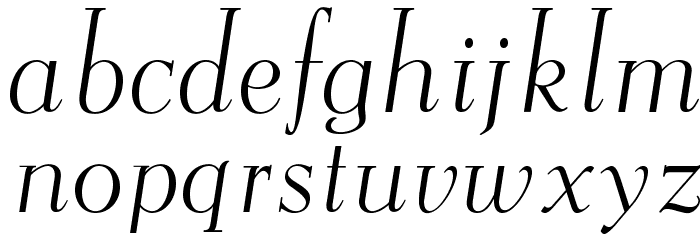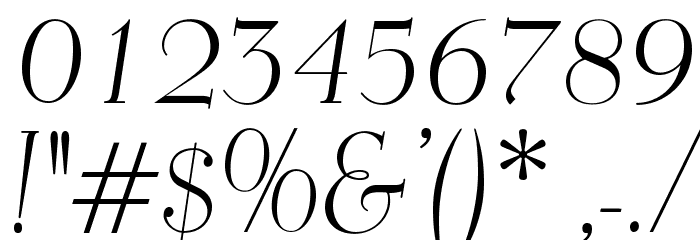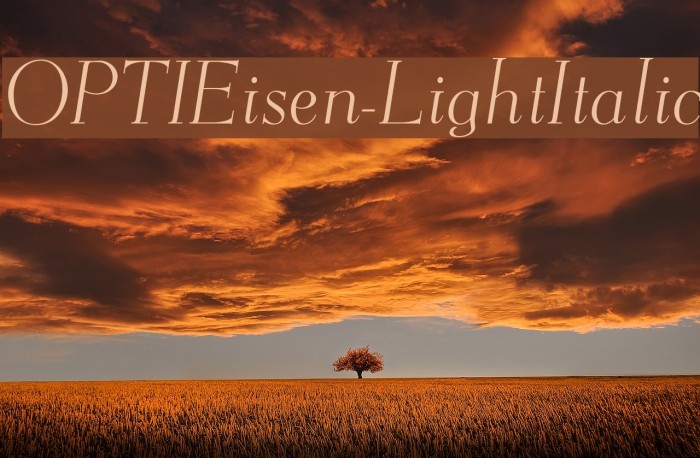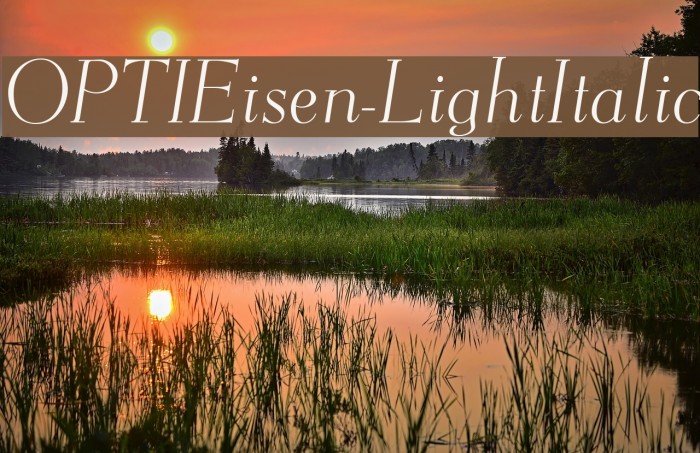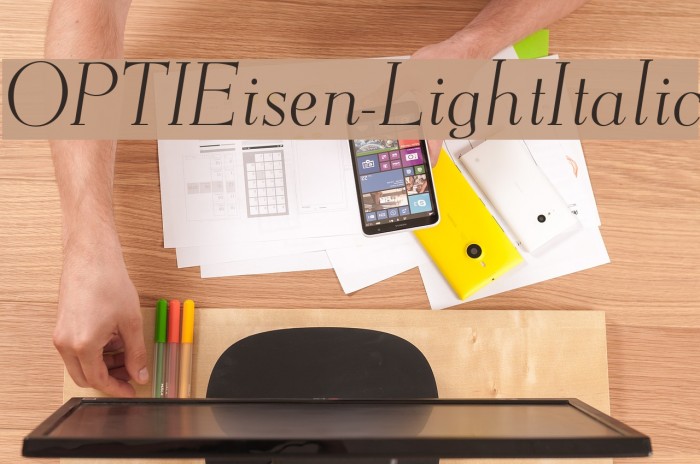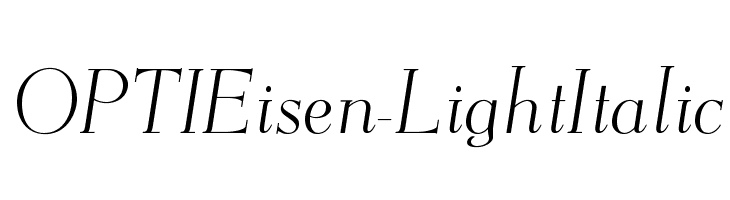
OPTIEisen-LightItalic Font
This font features a sophisticated and elegant design with a light and airy feel. The italic style adds a sense of movement and fluidity, making it ideal for projects that require a touch of class and refinement. The characters are well-proportioned with a slight slant, enhancing readability while maintaining a stylish appearance. The numerals and special characters are crafted with the same attention to detail, ensuring consistency across all elements. This font is perfect for use in formal documents, invitations, and branding materials where a subtle yet impactful impression is desired.
A light, elegant italic font with a refined and sophisticated style.
- Proposed Projects: Ideal for wedding invitations, luxury branding, formal documents, and elegant editorial design.
- Overall Style: Classic